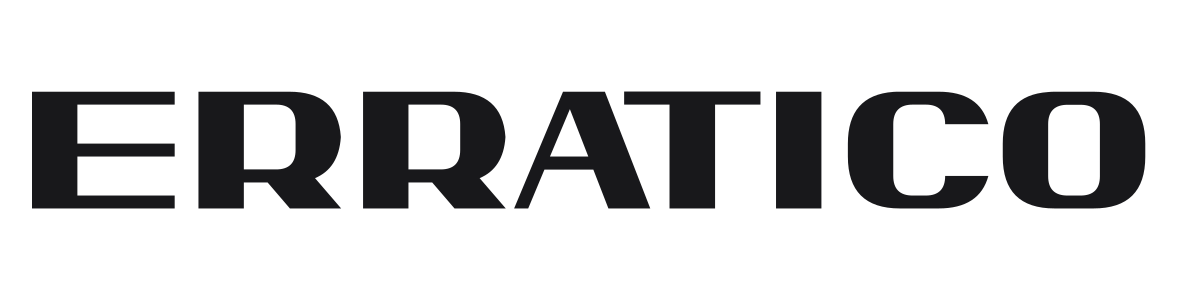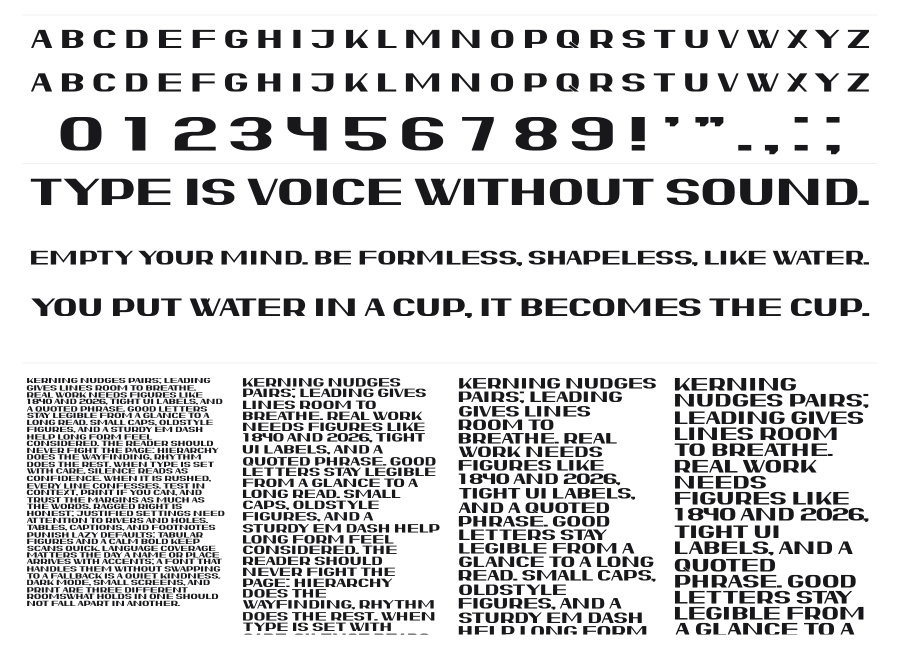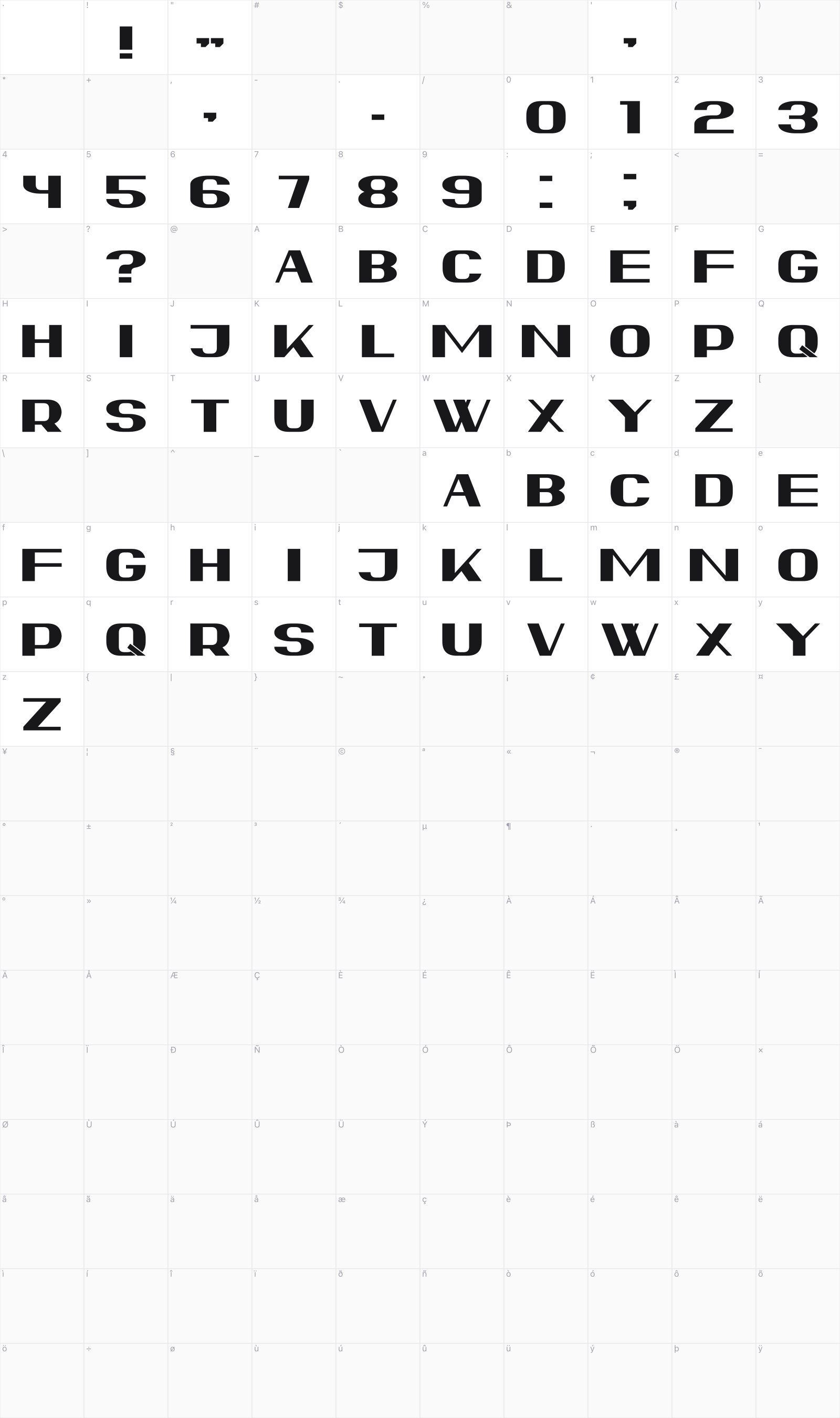
Erratico
Erratico is a bold geometric sans with wide, blocky proportions and a heavy monoweight stroke. Subtle pinching at stroke junctions and clean flat terminals keep it from feeling purely mechanical, giving it a quiet edge. It commands attention at headline and logo sizes.